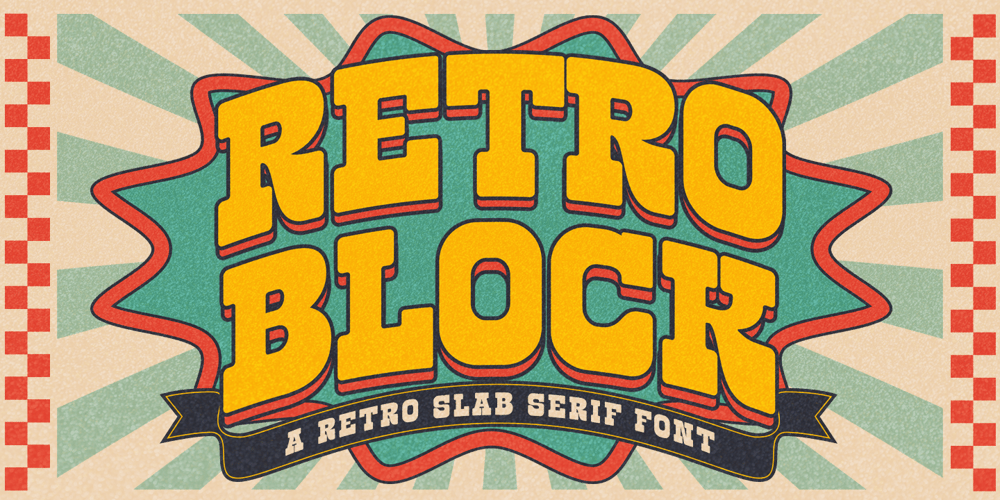
Retro Block Font Family was designed by Bangkit Tri Setiadi and published by Blankids. Retro Block contains 1 styles and family package options. Hello, awesome people! This time, we have a new font called Retro Block a Retro Slab Serif Font by Blankids Studio.Retro Block a Retro Slab Serif Font is made for any professional project branding, such as logotype, watermarks, poster, branding, promotions, product packaging, etc. Every letter has a playful retro style design.Retro Block font includes a full set of retro uppercase and lowercase letters, numerals and punctuation. This font has a retro style. See the previews above to get some inspiration on how to use them. Happy designing!The font support has an OpenType feature that can be opened by various graphic software programs, such as Canva, Adobe Illustrator, Adobe Photoshop, Adobe InDesign, and Corel Draw.Support Language:Afrikaans, Albanian, Asu, Basque, Bemba, Bena, Breton, Catalan, Chiga, Cornish, Danish, Dutch, English, Faroese, Filipino, Friulian, Galician, German, Gusii, Indonesian, Irish, Italian, Kabuverdianu, Kalenjin, Kinyarwanda, Luo, Luxembourgish, Luyia, Machame, Makhuwa-Meetto, Makonde, Malagasy, Manx, Morisyen, North Ndebele, Norwegian Bokmål, Norwegian Nynorsk, Nyankole, Oromo, Portuguese, Quechua, Romansh, Rombo, Rundi, Rwa, Samburu, Sango, Sangu, Scottish Gaelic, Sena, Shambala, Shona, Soga, Somali, Spanish, Swahili, Swedish, Swiss German, Taita, Teso, Uzbek (Latin), Vunjo, Zulu